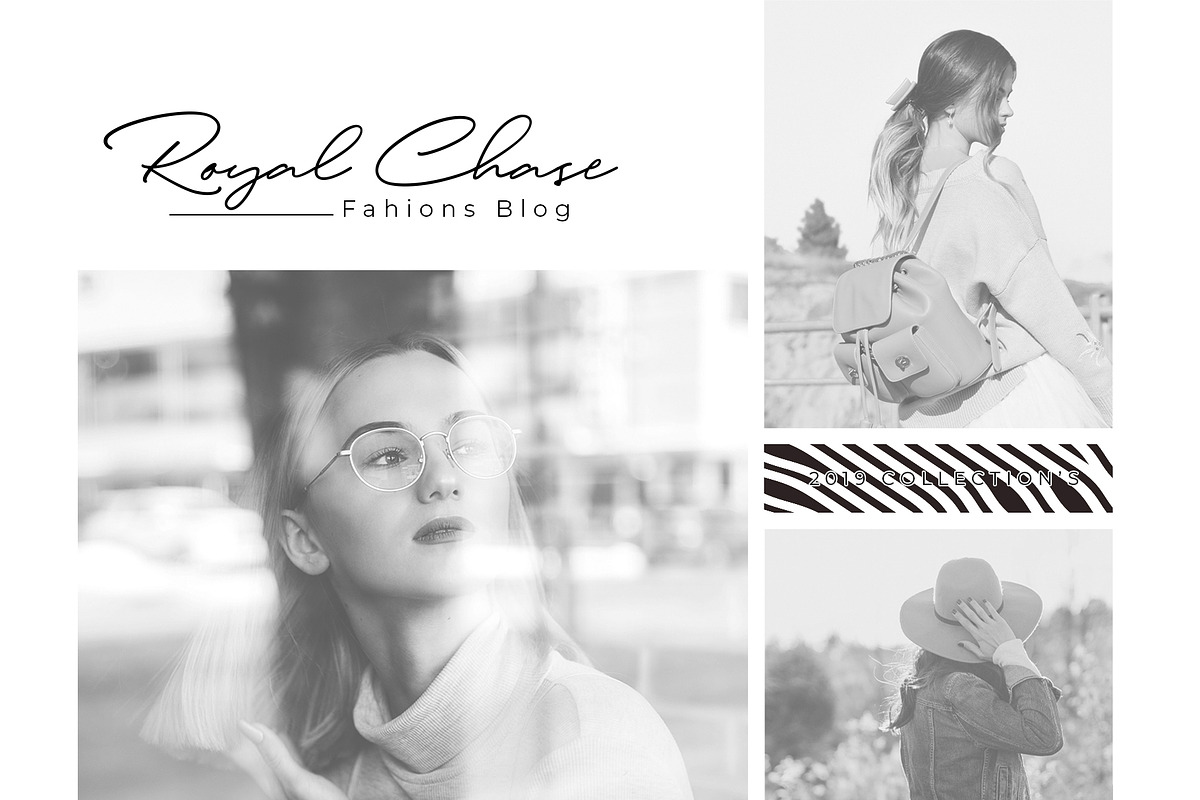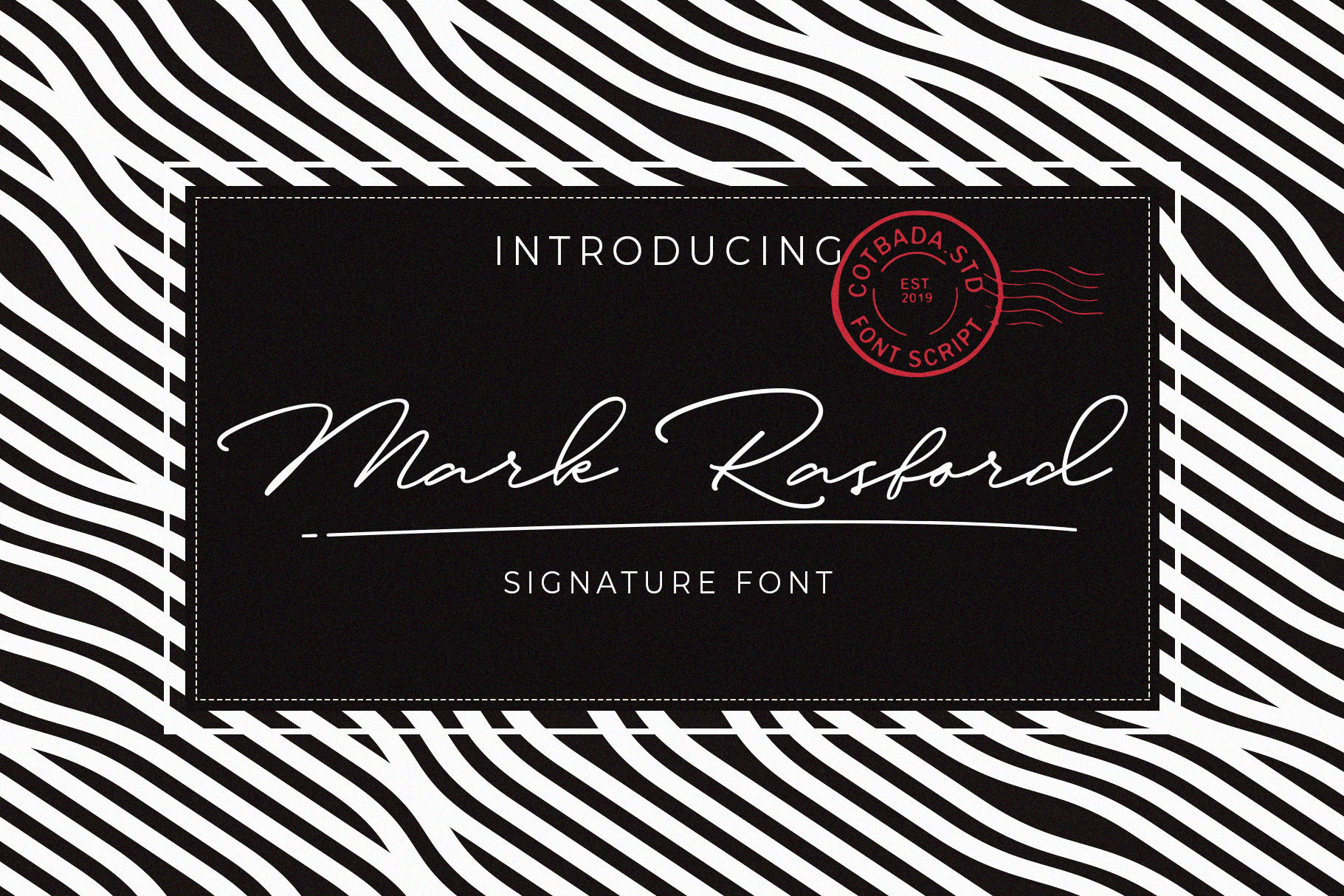
Mark Rasford Signature Font Script
I introduced our newest product "Mark Rasford Signature Font" ,i hope this font perfect for creating signature logos and watermarks for photography studio, initial or branding . I made it with a sense of legant & professianal.